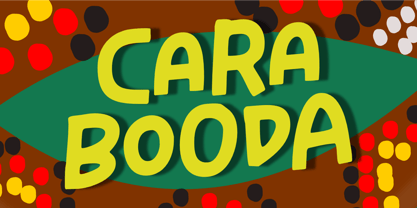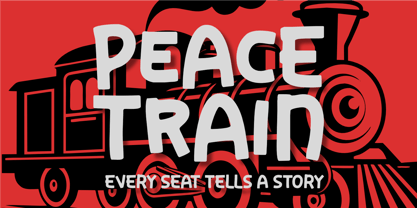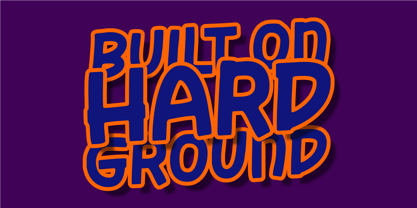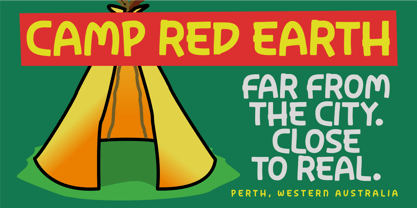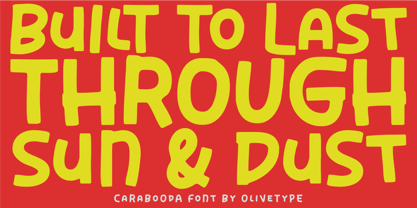
Carabooda
Die Schriftfamilie Carabooda wurde von Nurul Hidayani entworfen und von Olivetype veröffentlicht. Carabooda enthält 1 Stile. Mehr über diese Familie
Carabooda is a rugged display font inspired by the beautiful outskirts of Western Australia — where dusty roads, hard land, and quiet resilience shape what endures. Born from the edge of Perth, Carabooda captures the spirit of rural suburbs, pioneer grit, and west-coast toughness. Its bold letterforms feel solid, confident, and unpolished — built for impact, not decoration. This typeface doesn’t chase trends; it stands its ground. Designed for posters, movie titles, streetwear, automotive branding, camping and outdoor projects, album covers, and bold logos, Carabooda delivers a strong visual voice rooted in land, history, and authenticity. If you’re looking for a font that feels real, grounded, and built to last, Carabooda brings suburb grit straight into your designs.